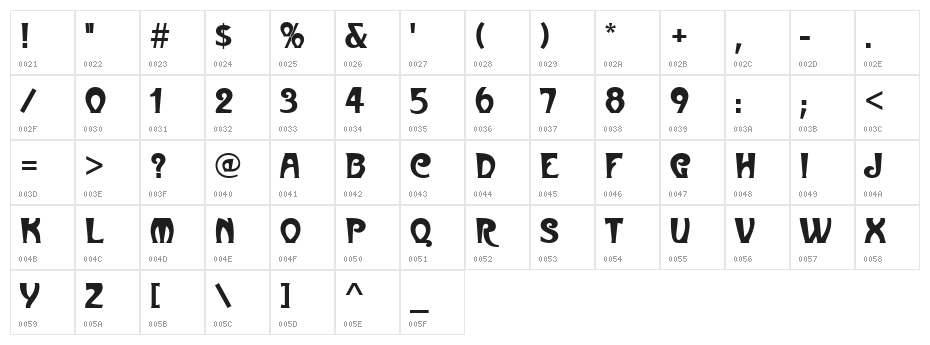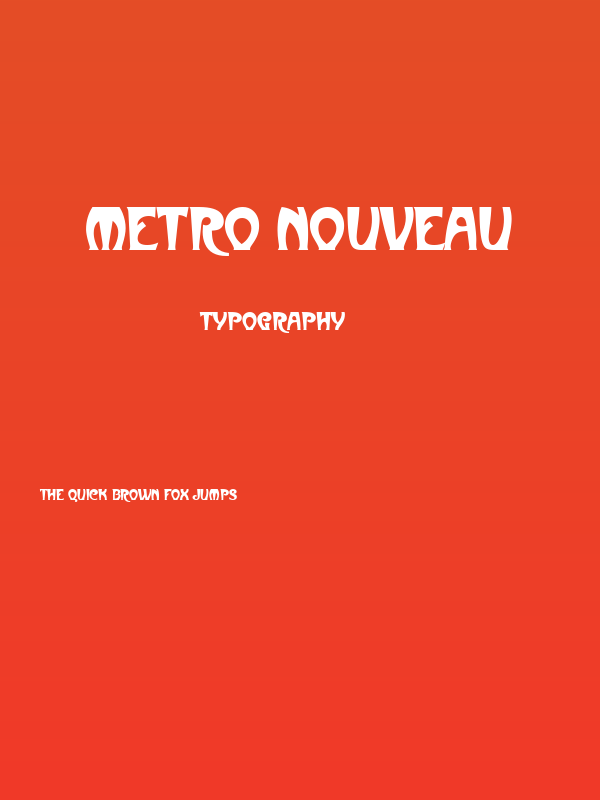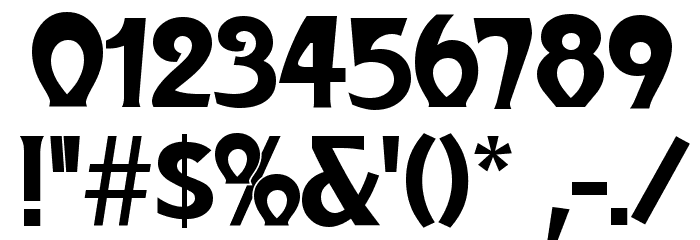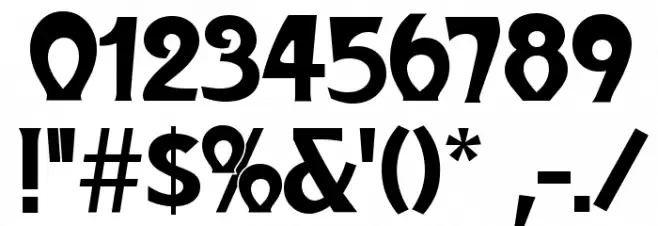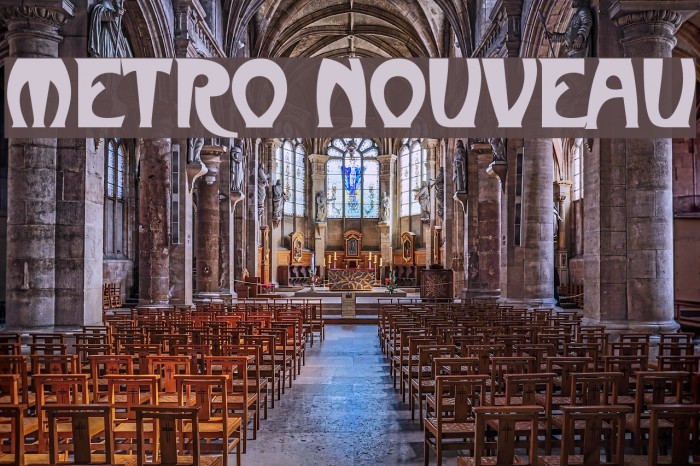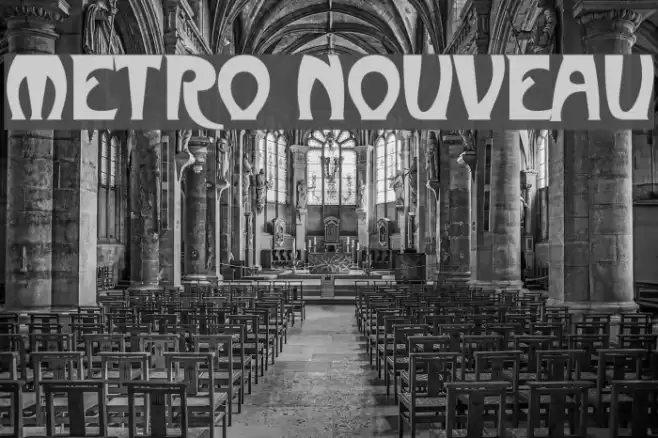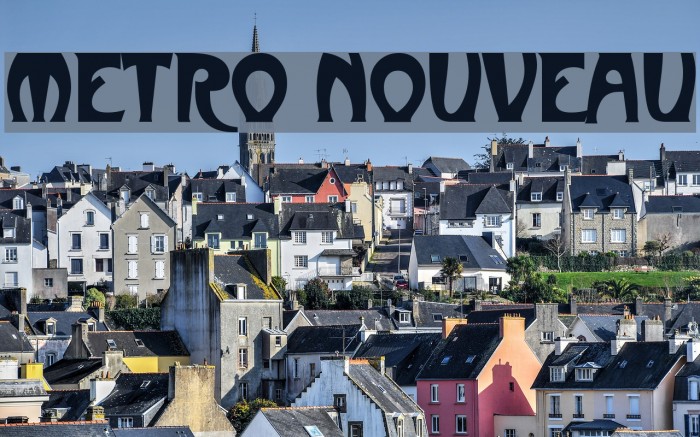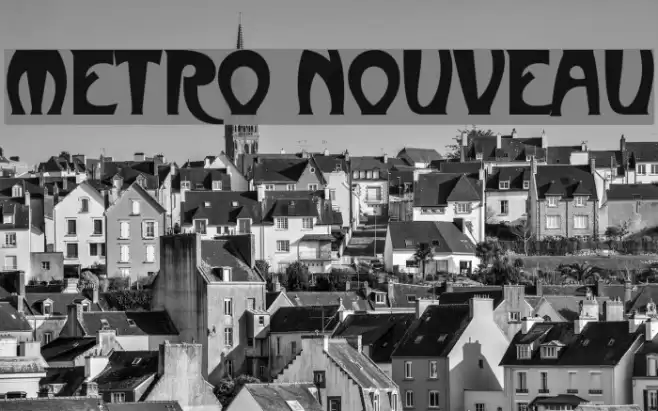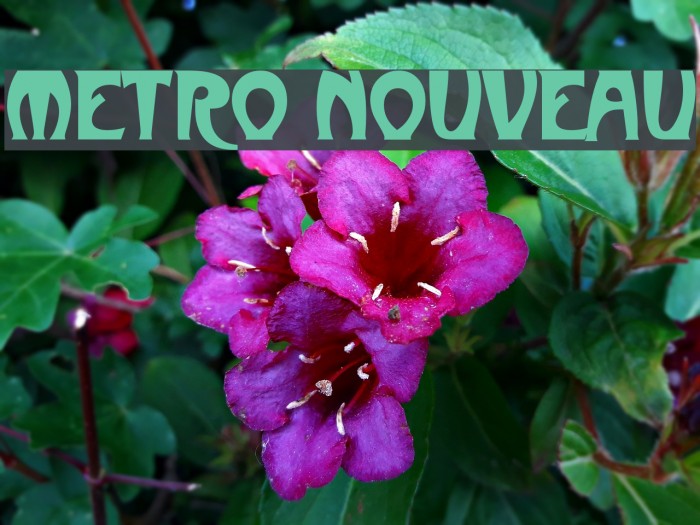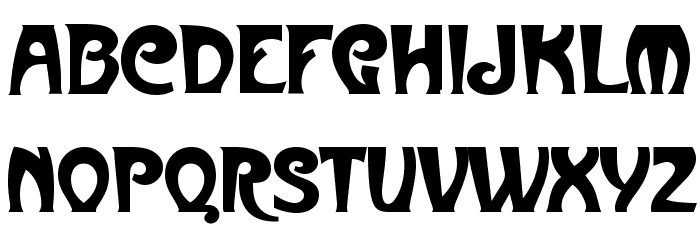
Metro Nouveau Font
Metro Nouveau Description
This font features a bold and dynamic style with a strong Art Nouveau influence, characterized by its flowing, organic shapes and decorative elements. The letters exhibit a unique blend of curves and sharp angles, creating a sense of movement and elegance. The uppercase characters are particularly striking, with intricate details that draw the eye. The numbers and special characters maintain the same artistic flair, ensuring a cohesive look across all text. This font is ideal for projects that require a touch of vintage charm and artistic expression.
| Overall Style | Vintage |
| Proposed Projects | Ideal for posters, branding, packaging, and any design needing a vintage or artistic touch. |